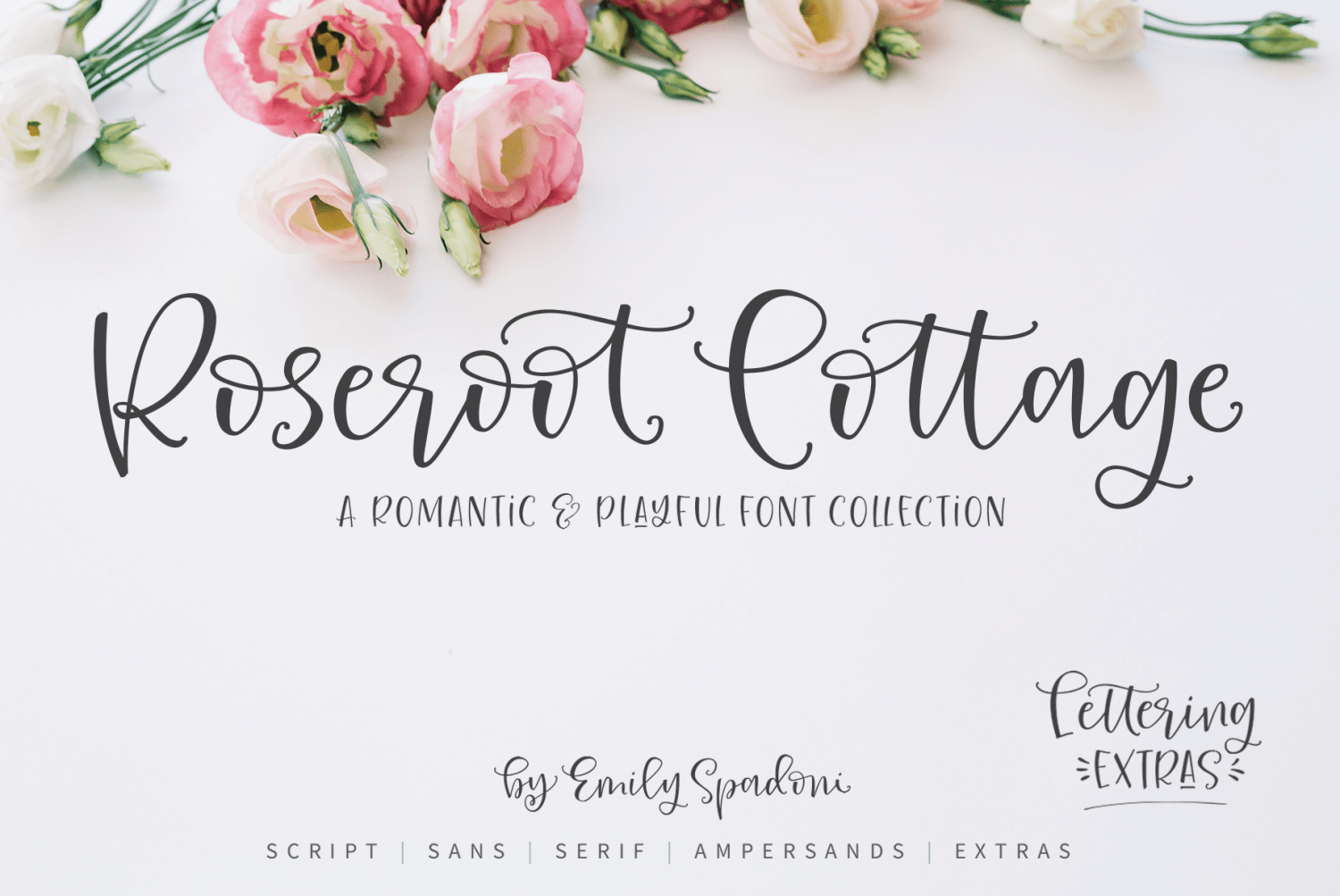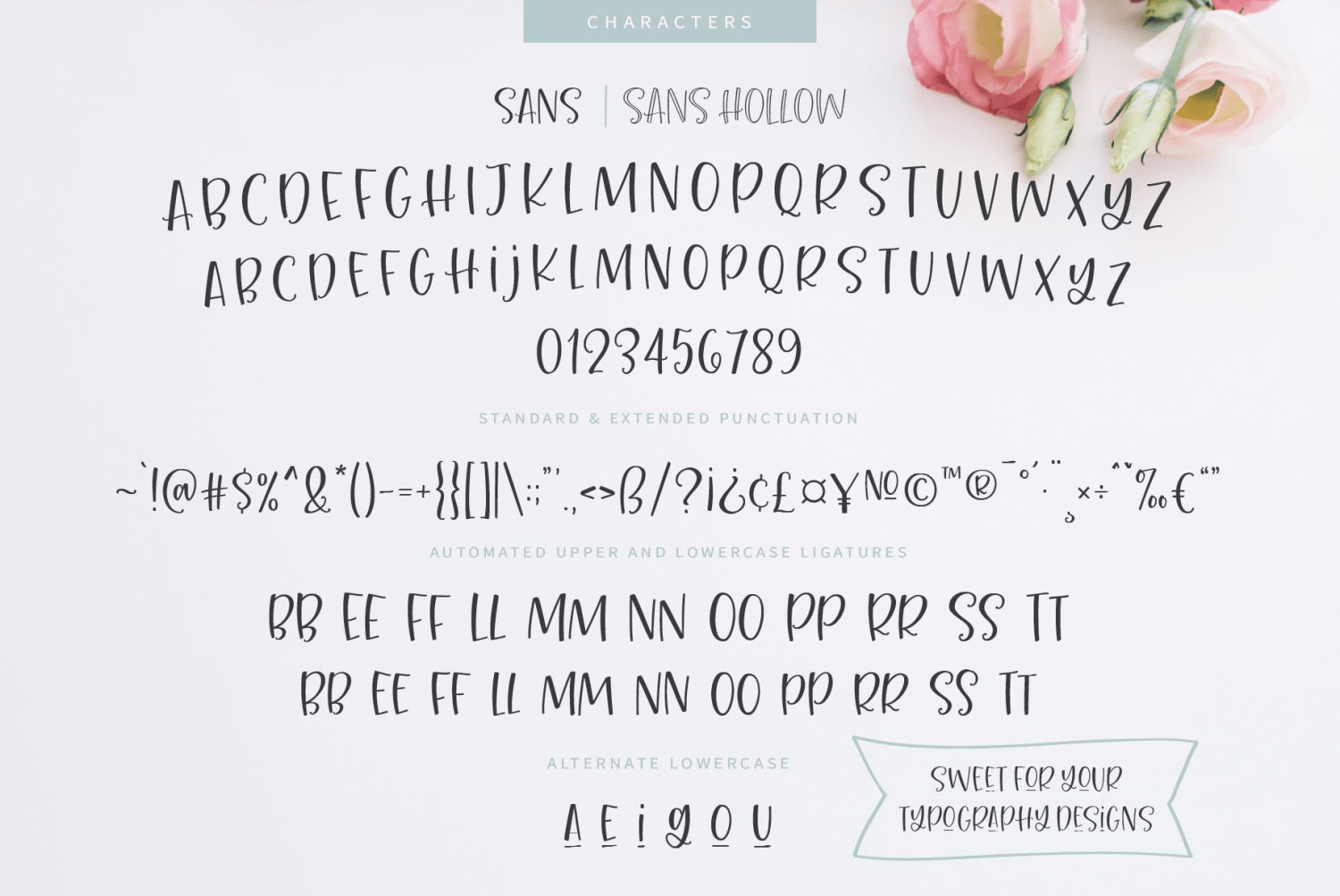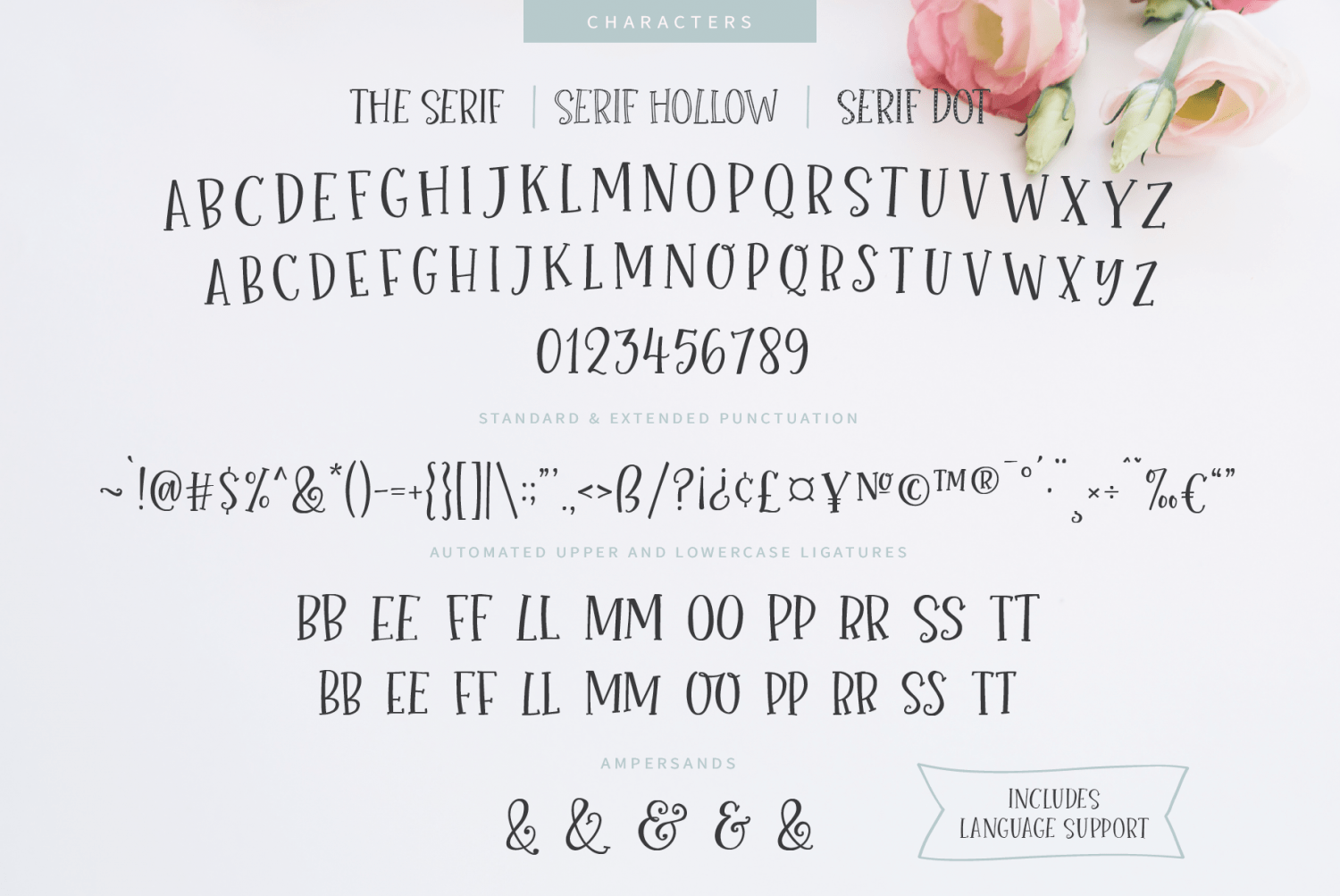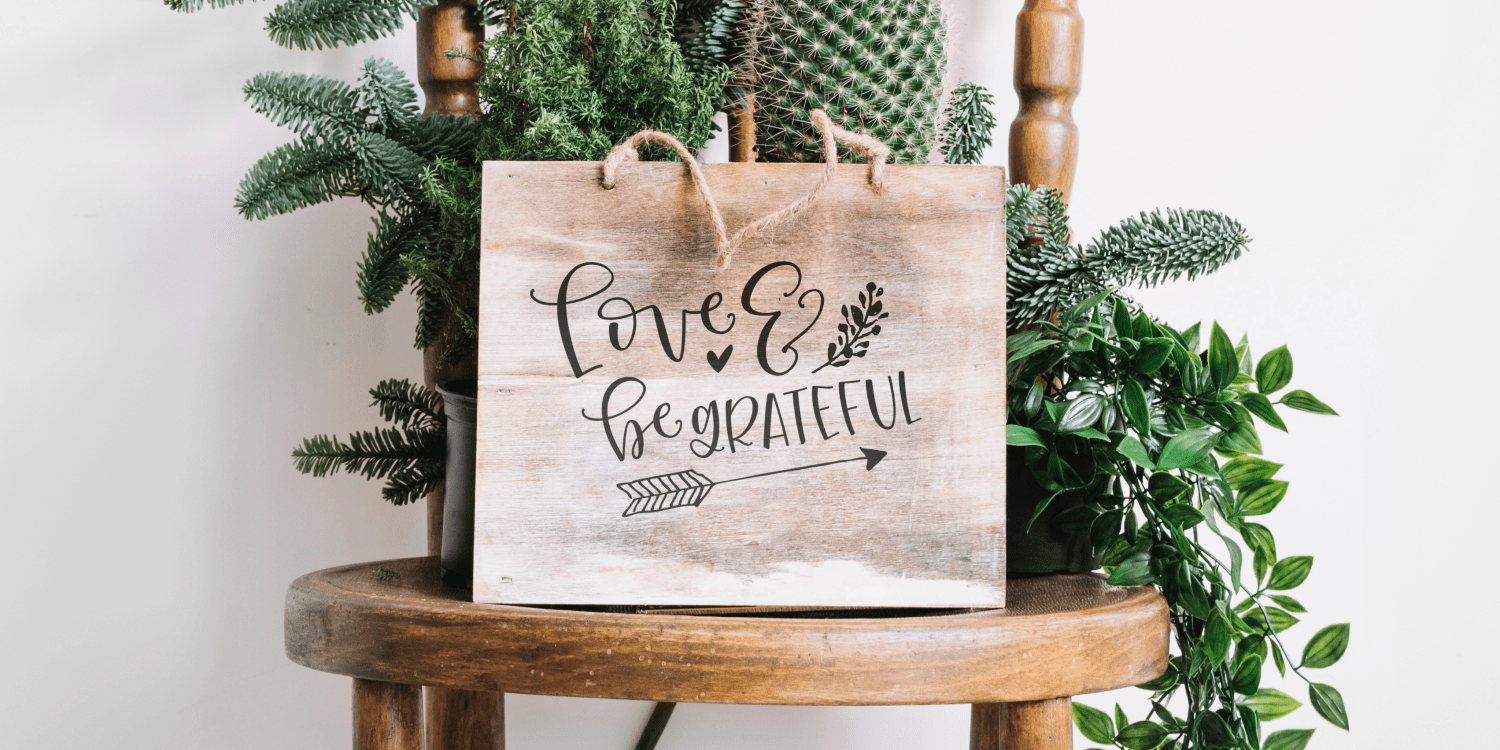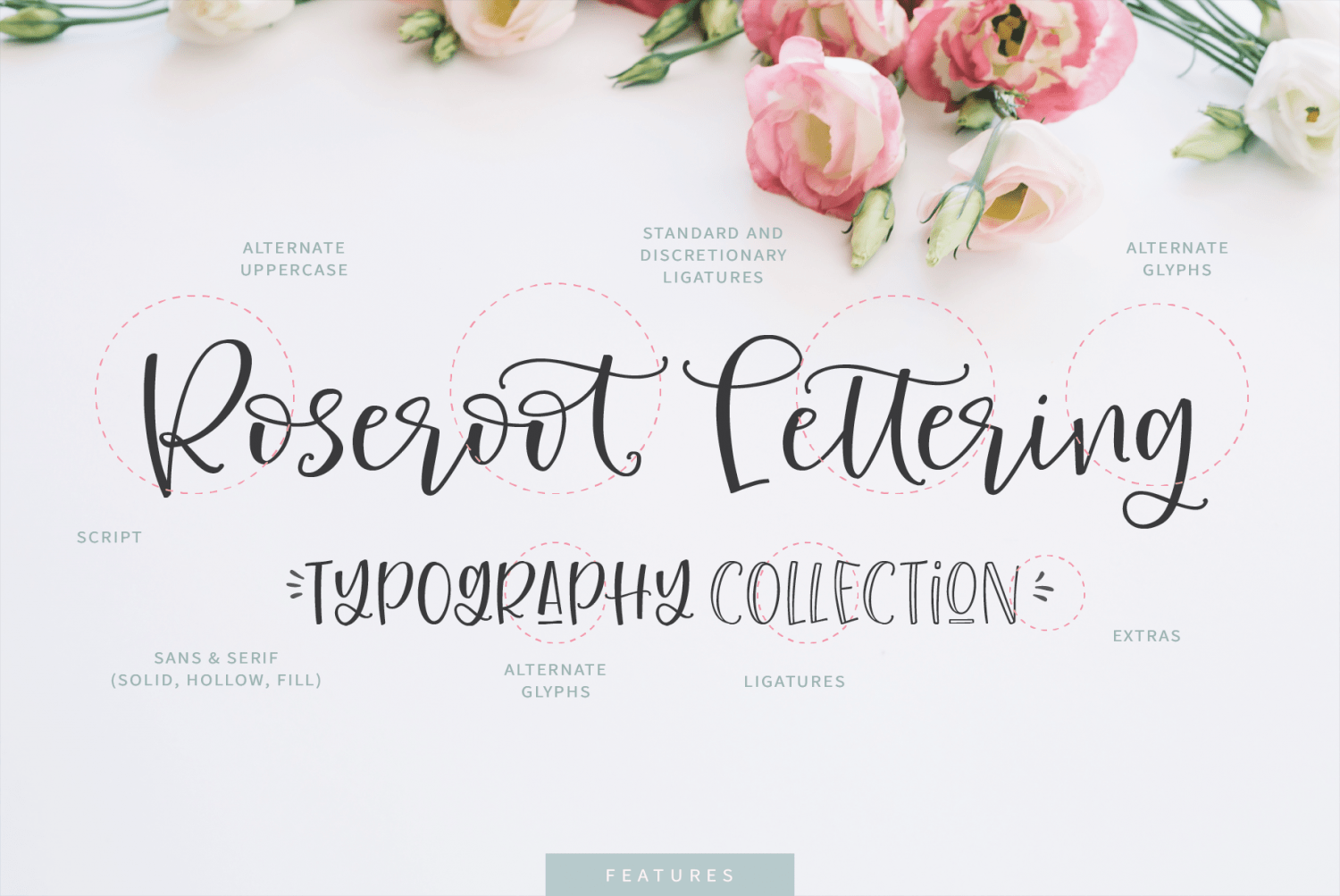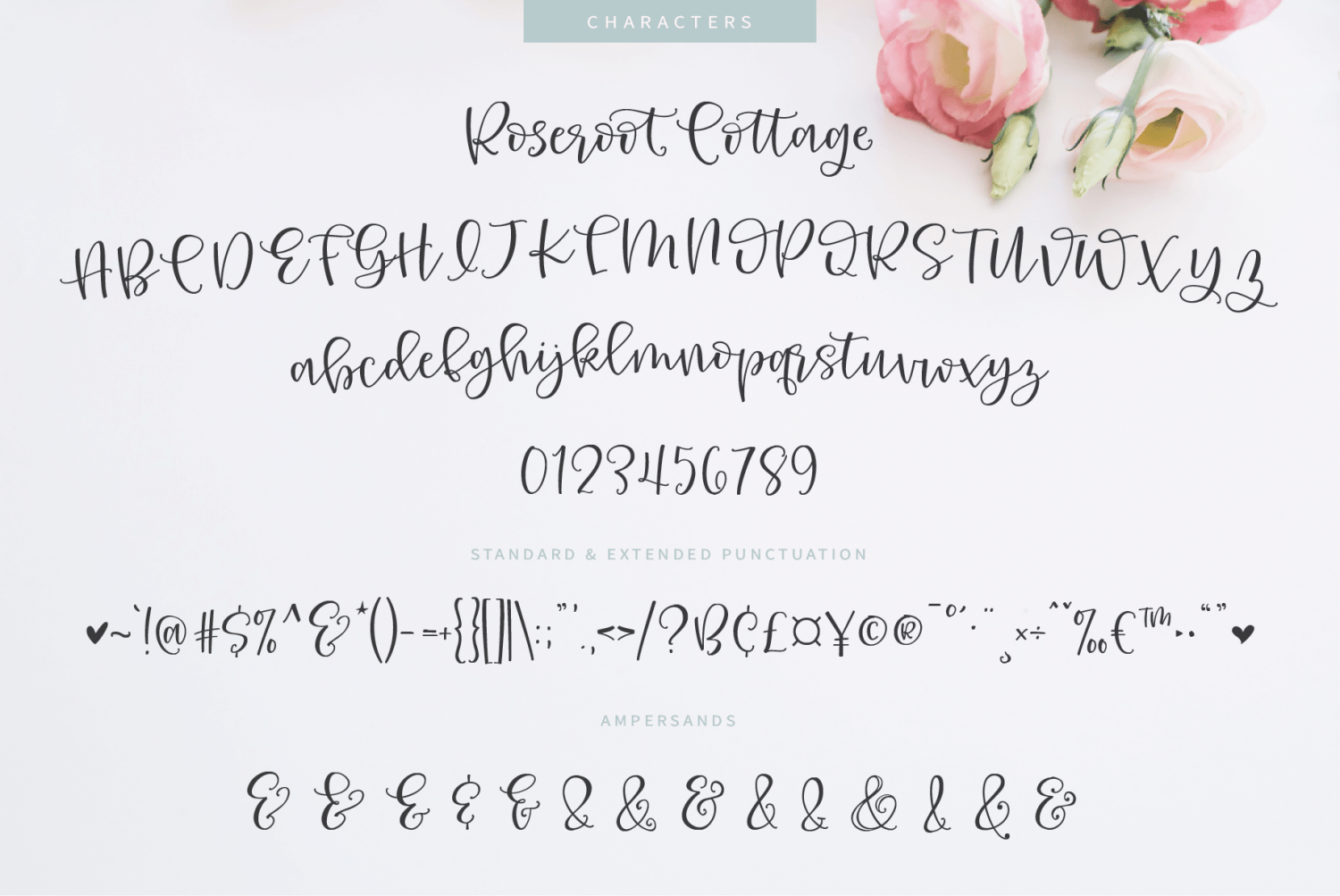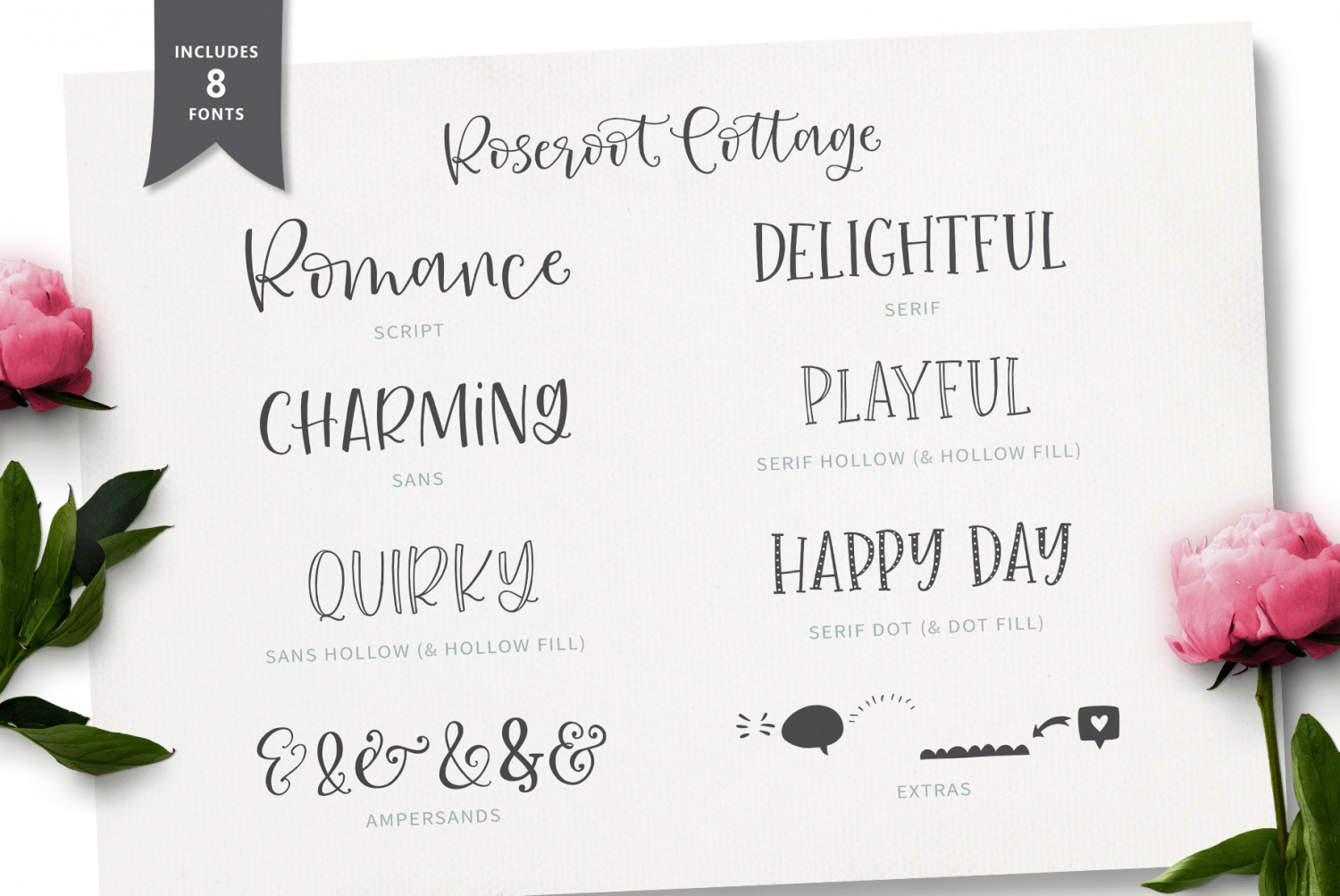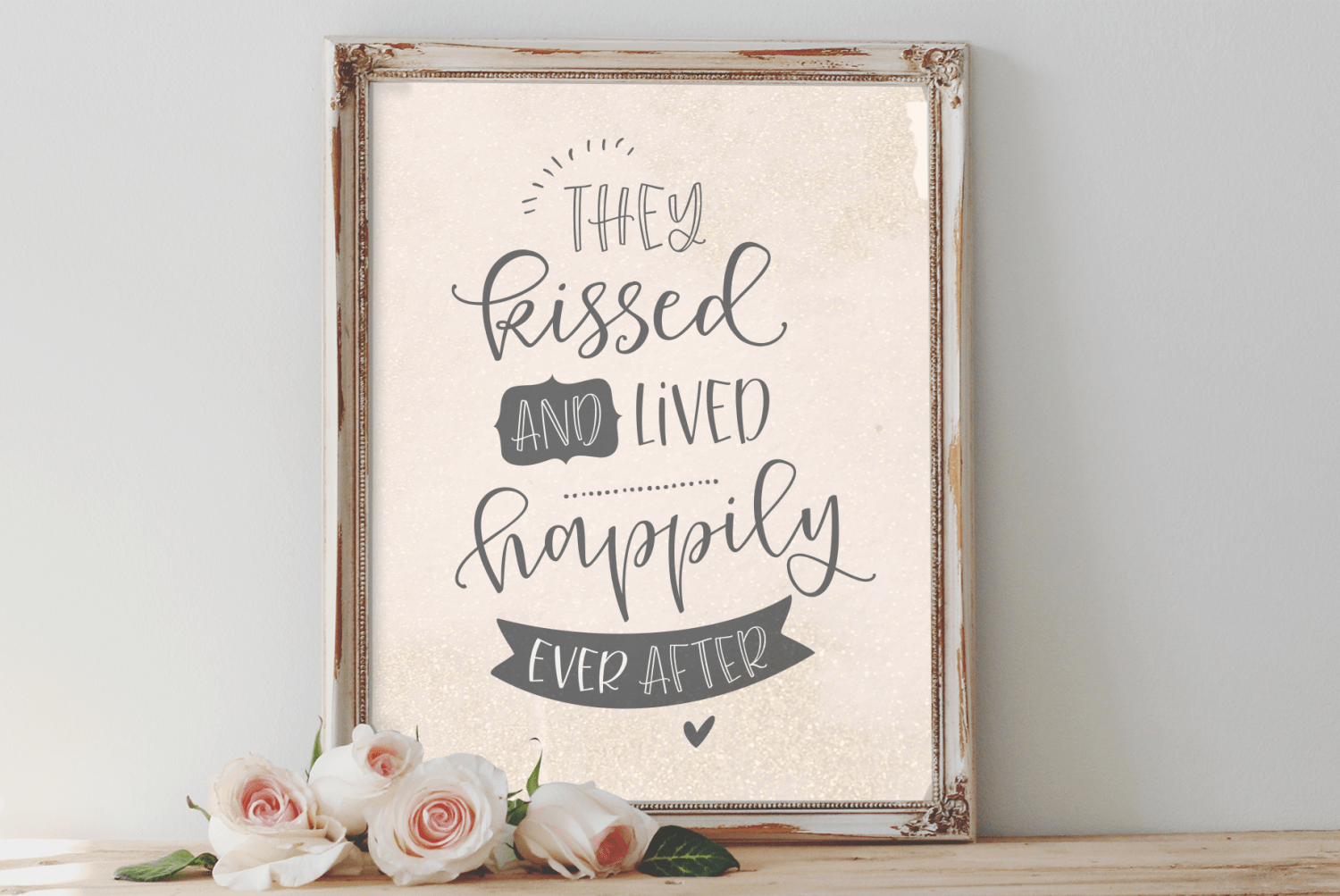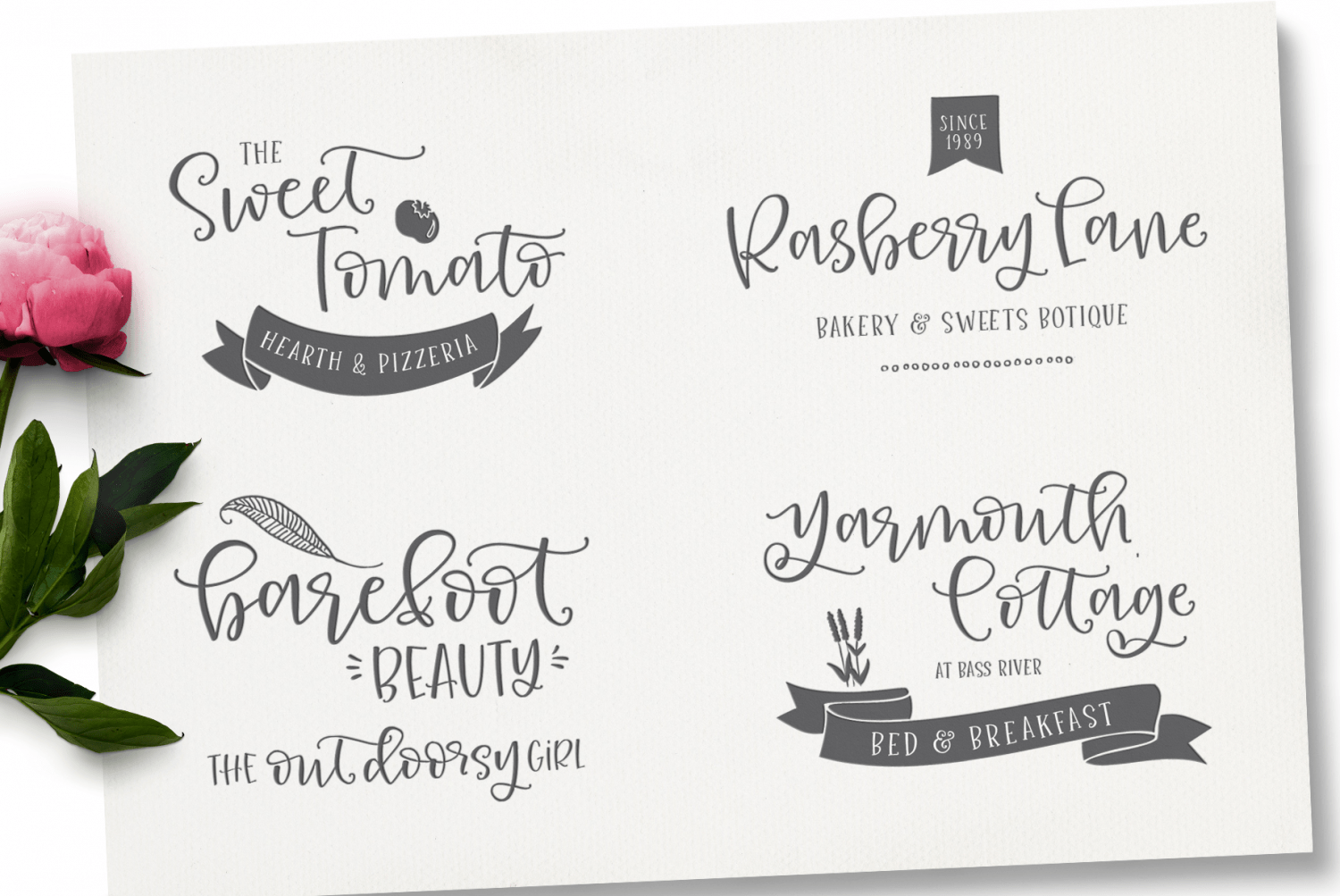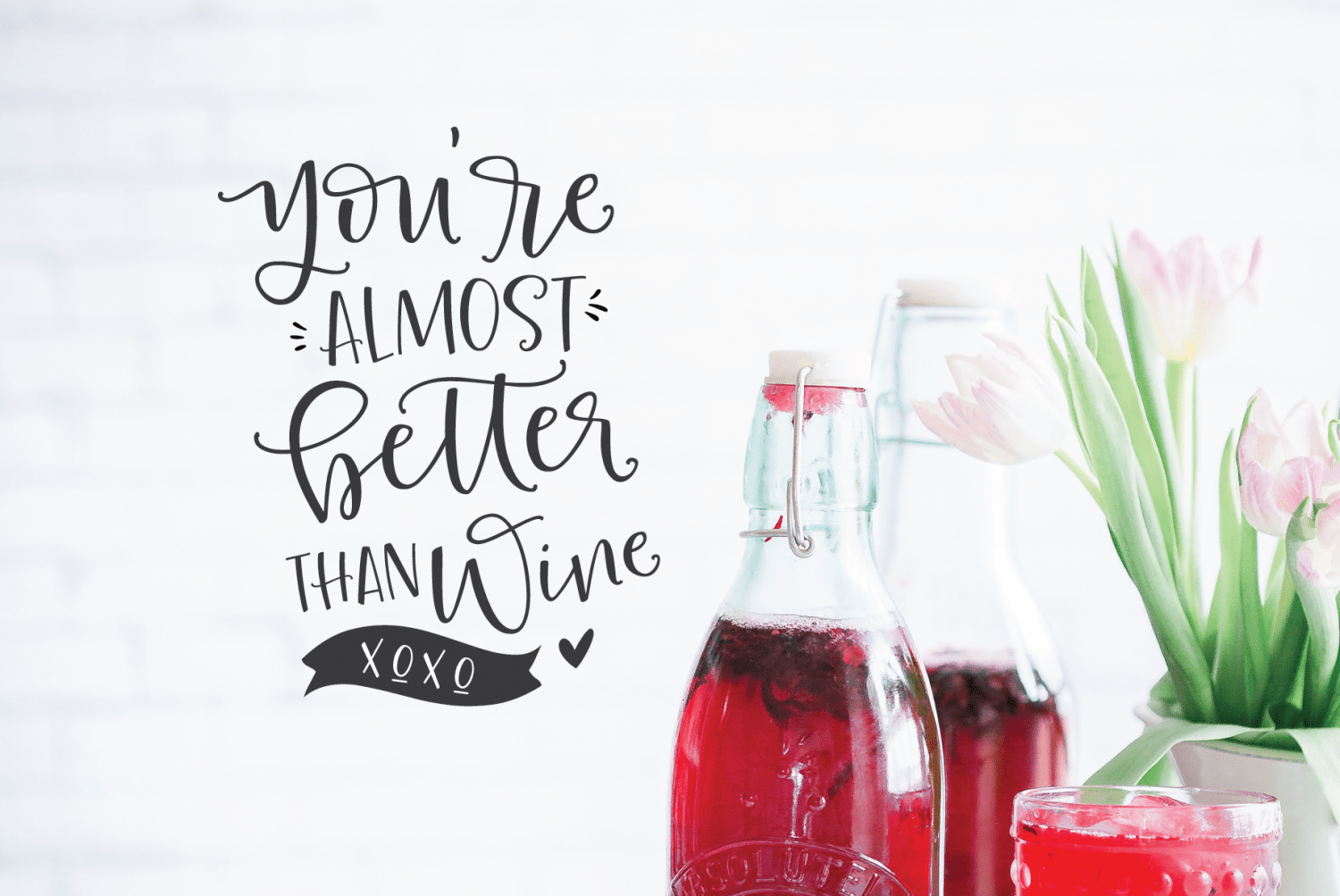
Roseroot Cottage Font Collection
Font Family by Emily Spadoni
Roseroot Cottage Font Collection Includes:
• Automated Standard and Discretionary Ligatures plus more of your choice
• Tons of alternate lowercase initial and terminal characters
• Alternate uppercase
• Multi-lingual support, International and Special Punctuation
• Roseroot Cottage Sans
• Roseroot Cottage Sans Hollow
• Roseroot Cottage Sans Hollow Fill
• Roseroot Cottage Serif
• Roseroot Cottage Serif Hollow
• Roseroot Cottage Serif Hollow Fill
• Roseroot Cottage Serif Dot
• Roseroot Cottage Serif Dot Fill
• All Sans and Serif